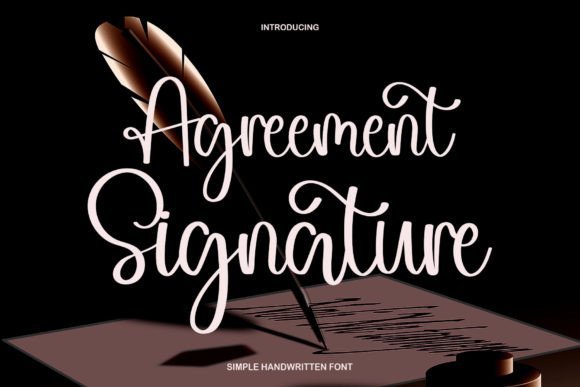
Introduction to Agreement Signature Font
Agreement Signature is a classic and elegant handwritten script.
The distinctive outline of the characters will make your design ideas unforgettable Fall in love with it and bring your projects to their peaks.
Key Features of Agreement Signature Font
Why Choose Agreement Signature Font?
Agreement Signature Font offers exceptional quality and versatility, making it a valuable addition to your design toolkit. Whether you’re creating for personal projects or commercial use, Agreement Signature Font delivers professional results.